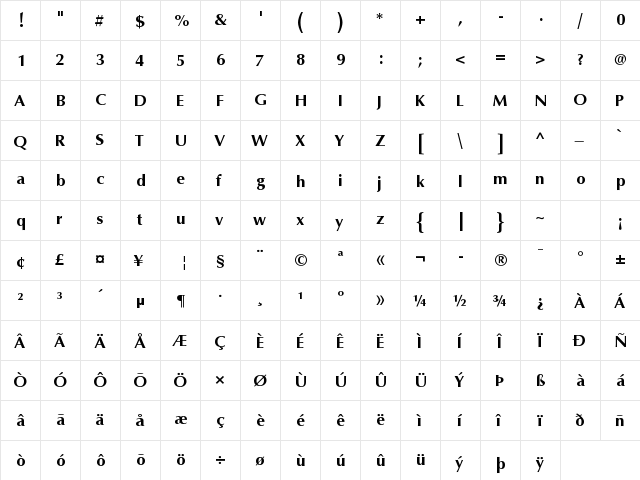
Bahij Mitra Bold
| Foundry | Tiro Typeworks for Adobe Systems Incorporated. |
| Designer | Tim Holloway (Arabic) and Robert Slimbach (Latin) |
Design Context for Bahij Mitra Typeface
Bahij Mitra offers clean, dependable letterforms without strong stylistic allegiance, making it a practical choice for designers who need flexibility. The heavy weight commands attention and anchors typographic hierarchies.